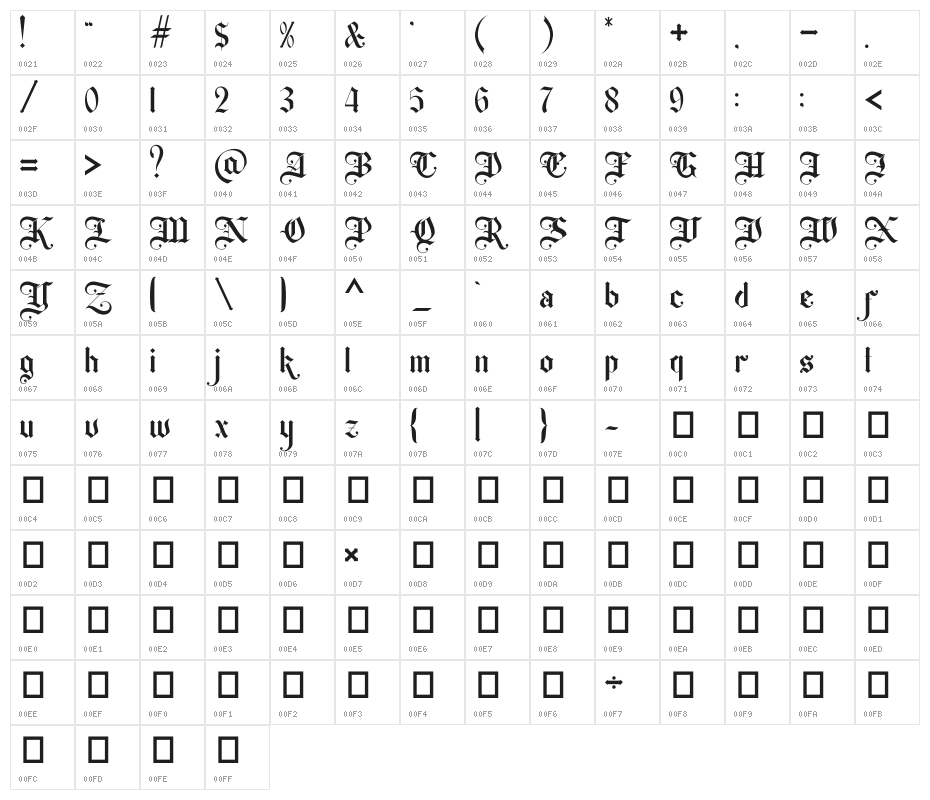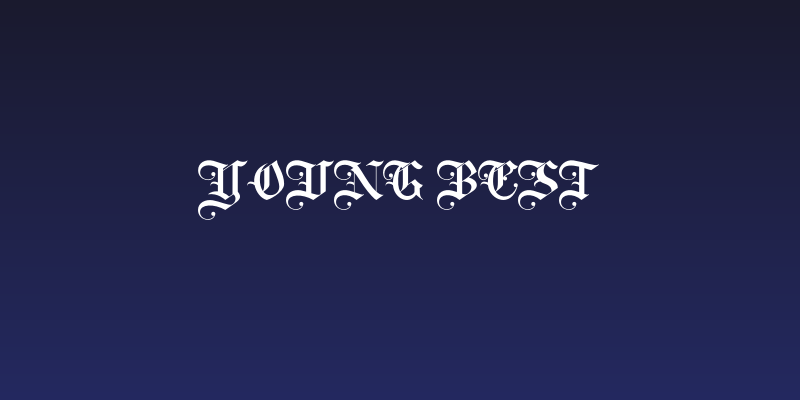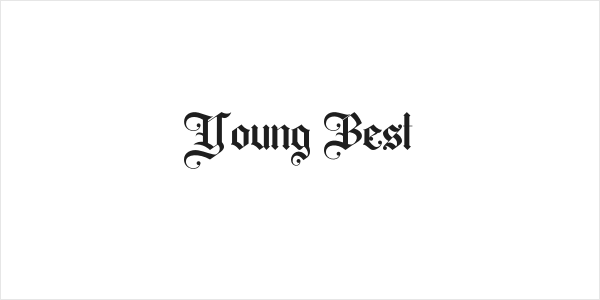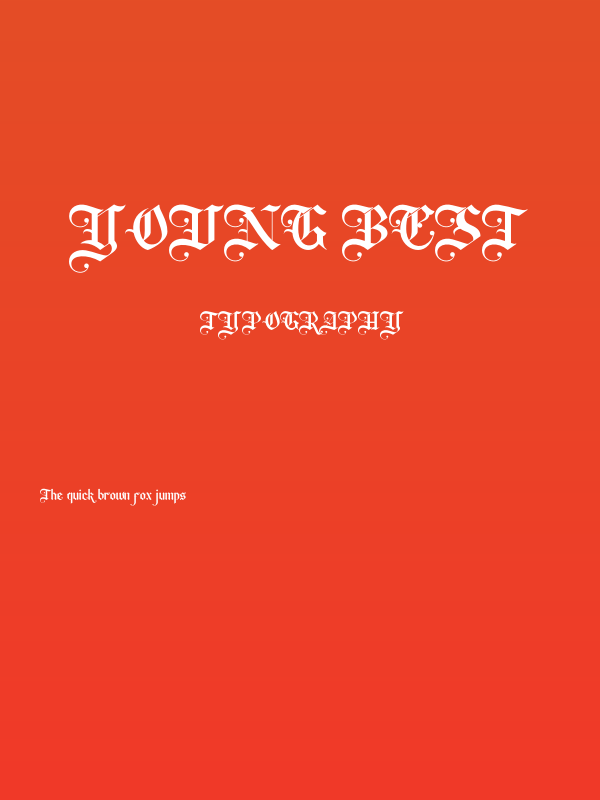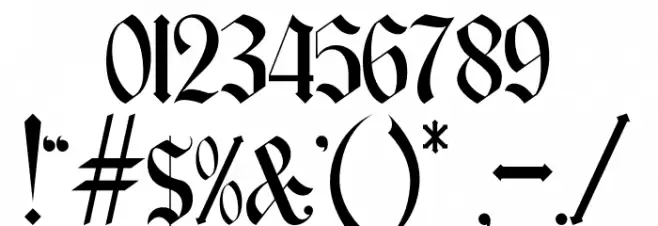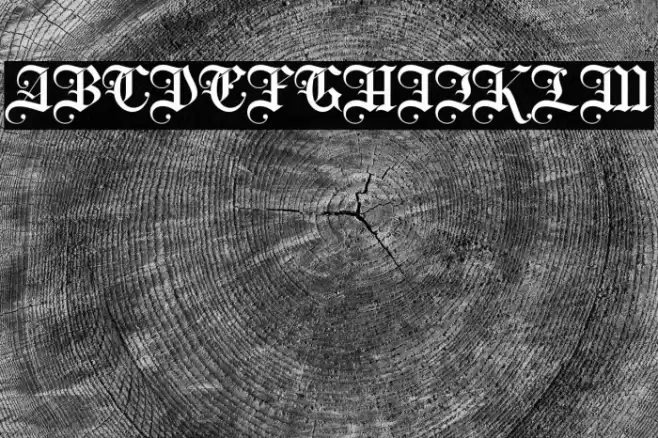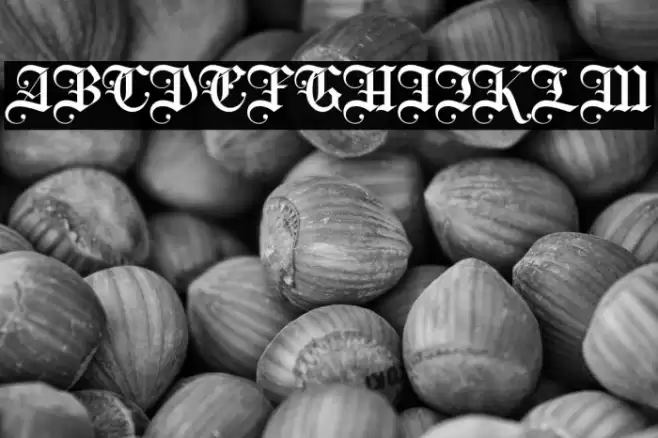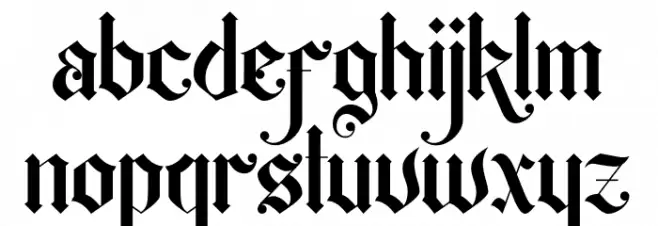
Young Best Font
Young Best Description
This font exudes a classic and ornate style, reminiscent of traditional Blackletter typefaces. It features intricate details with sharp, angular lines and decorative flourishes, particularly noticeable in the uppercase letters. The lowercase letters maintain a consistent style, with a strong emphasis on vertical strokes and pointed serifs. The numerals and special characters are equally elaborate, adding to the font's overall decorative appeal. This font is highly stylized, making it suitable for projects that require a historical or gothic aesthetic.
| Proposed Projects | Ideal for historical documents, gothic-themed designs, book covers, and decorative signage. |